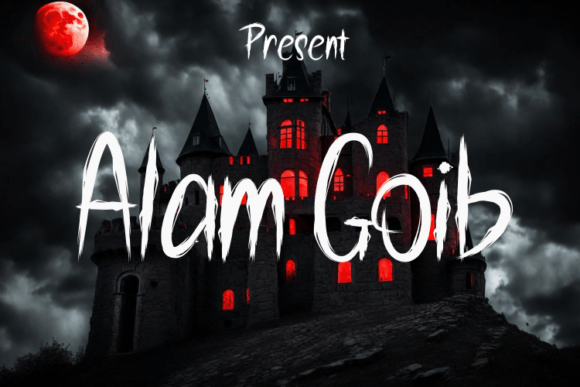
Introducing Alam Goib: The Mystical Font For Captivating Designs!
Embark on a typographical journey with Alam Goib, an enchanting display font that casts a spell on your creative endeavors. This masterpiece, crafted by the visionary Eric Kusuma, is the epitome of elegance and allure, empowering you to weave tales of enchantment through your designs.
Alam Goib's cursive strokes dance across the page like wisps of ethereal smoke, captivating your audience in a web of intrigue. Each glyph is a testament to meticulous attention to detail, designed to evoke a sense of wonder and mystique. Whether you seek to create enchanting logos, spellbinding invitations, or captivating social media posts, Alam Goib is the font that will ignite your designs with otherworldly charm.
Beyond its aesthetic appeal, Alam Goib is a versatile font that adapts effortlessly to a myriad of creative pursuits. From the delicate flow of wedding invitations to the bold statements of branding, this font possesses the uncanny ability to transform the ordinary into the extraordinary. Its graceful curves and sweeping flourishes lend an air of sophistication to any project, while its underlying strength ensures that your message resonates with clarity and impact.
Indulge in the magic of Alam Goib today and unveil the hidden potential of your creative spirit. Let this enchanting font guide you through a realm of captivating designs, where every stroke of the pen becomes a masterpiece of enchantment.